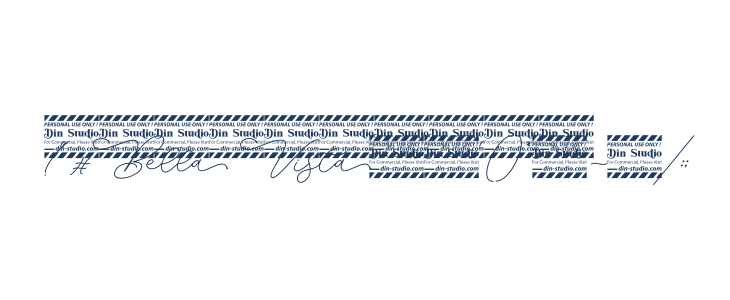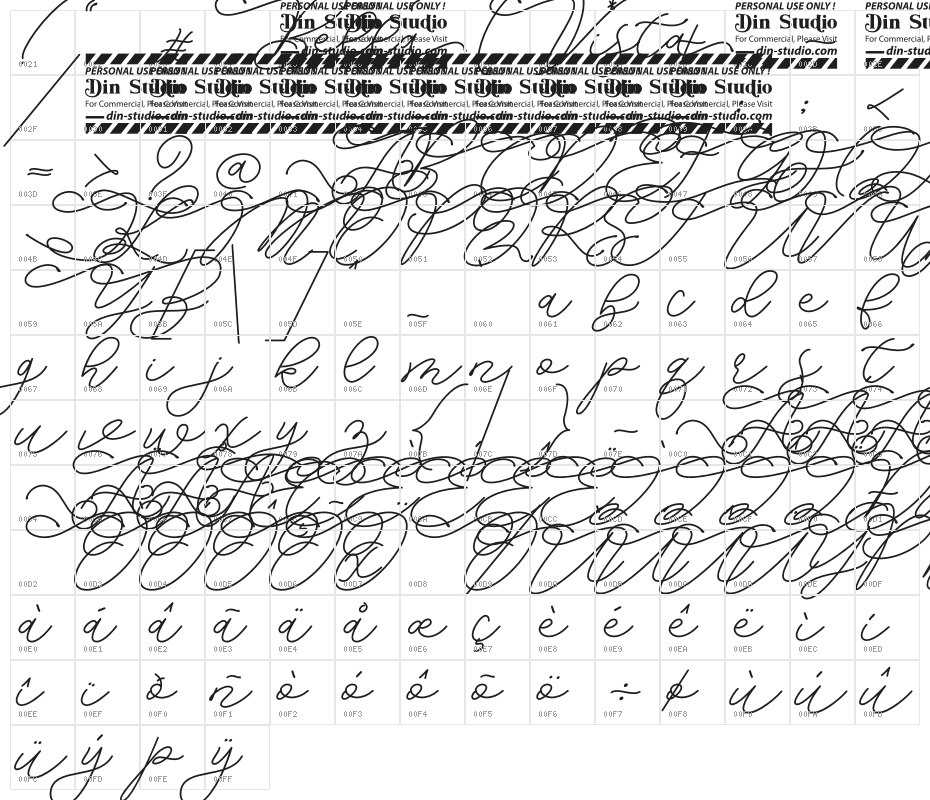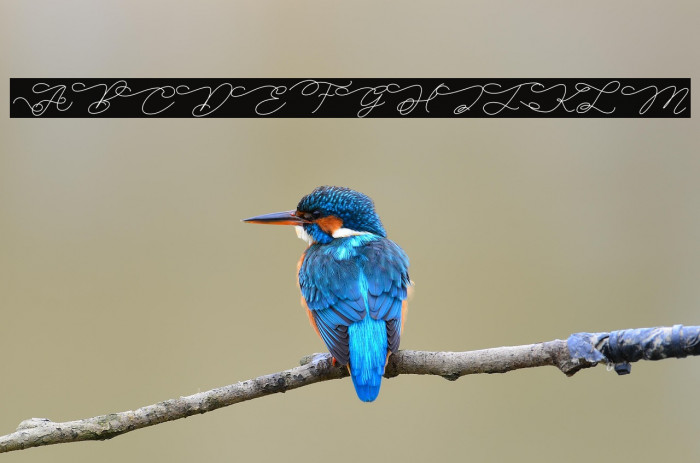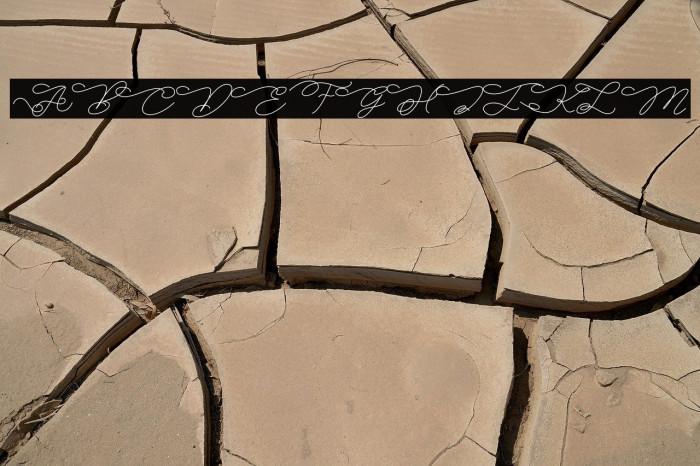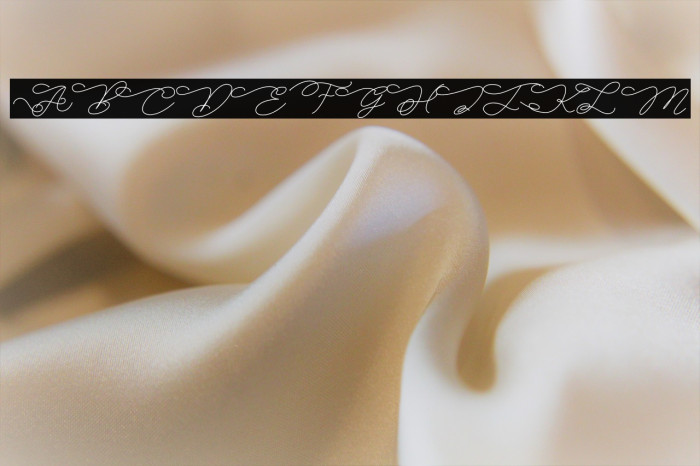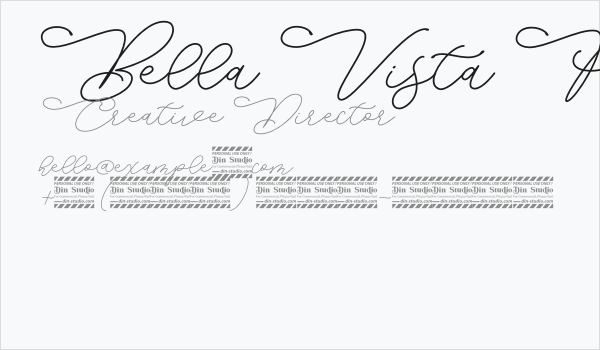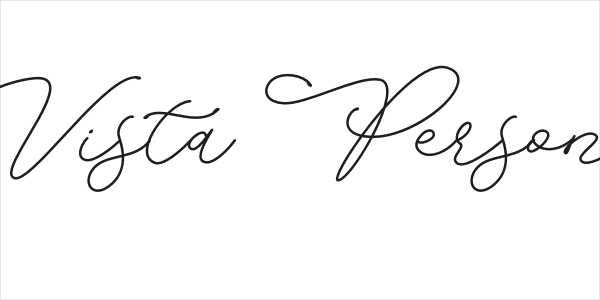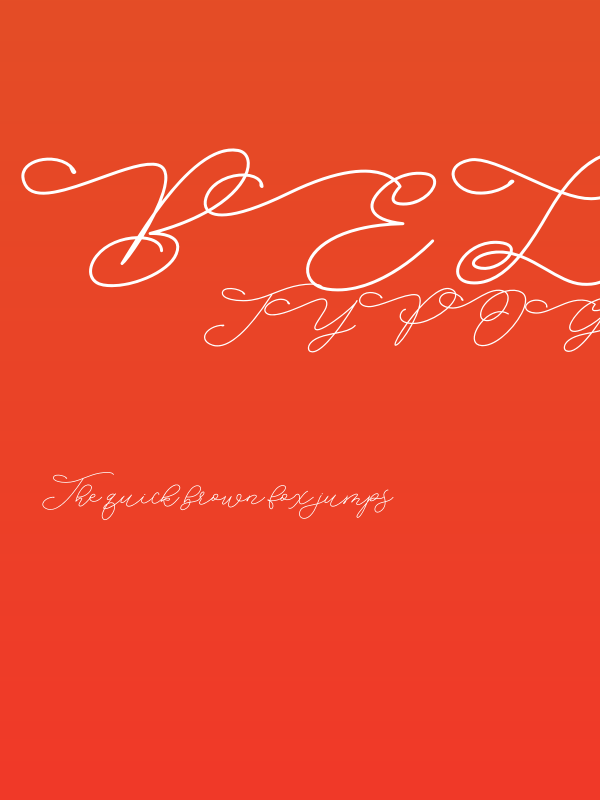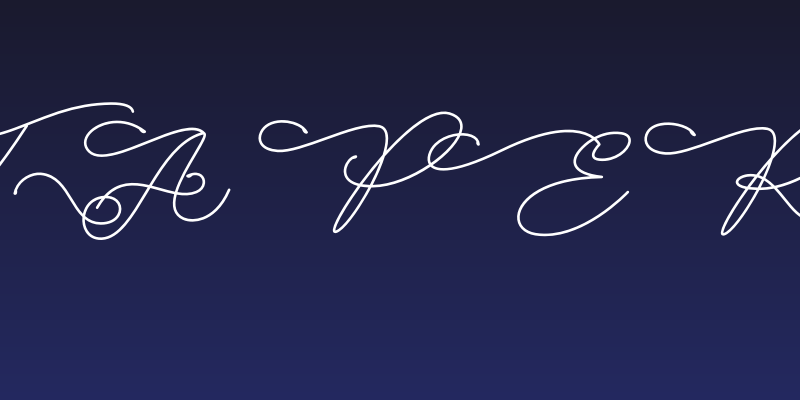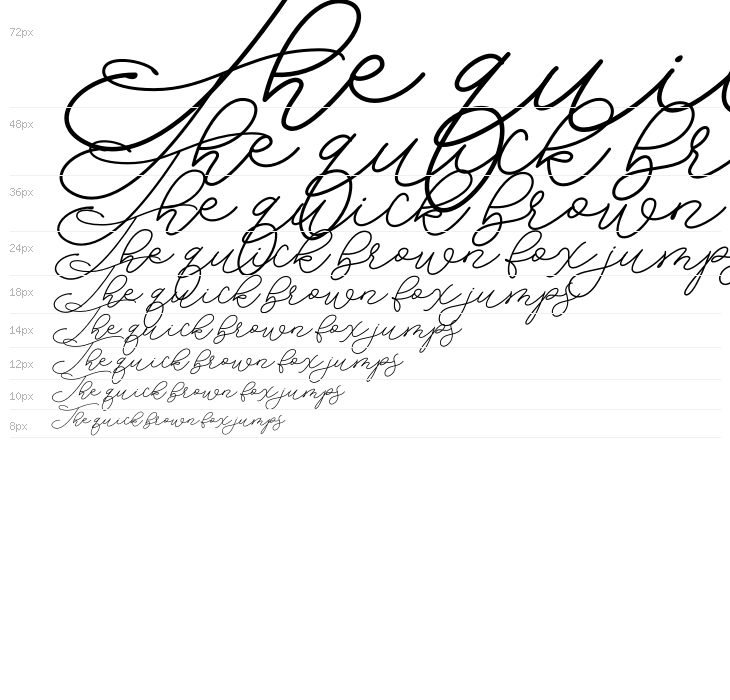
Bella Vista Personal Use Font
Bella Vista Personal Use Description
This elegant script font features a flowing, cursive style with intricate loops and swirls, giving it a sophisticated and graceful appearance. The uppercase letters are particularly ornate, with elaborate flourishes that enhance their decorative appeal. The lowercase letters maintain a consistent fluidity, making the font suitable for creating a seamless, handwritten look. The numbers and special characters are designed with the same attention to detail, ensuring a cohesive aesthetic throughout. This font exudes a sense of elegance and charm, making it ideal for projects that require a touch of class and refinement.
| Proposed Projects | Wedding invitations, luxury branding, personal stationery, and elegant signage. |